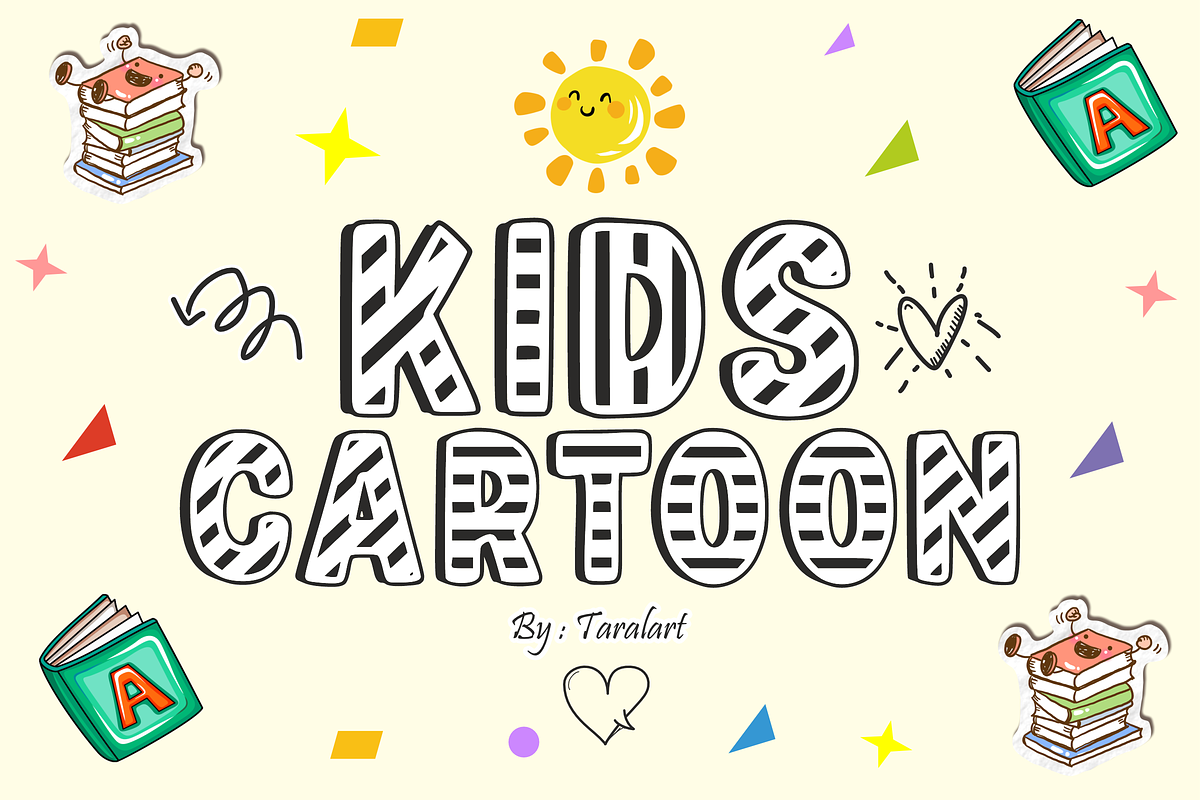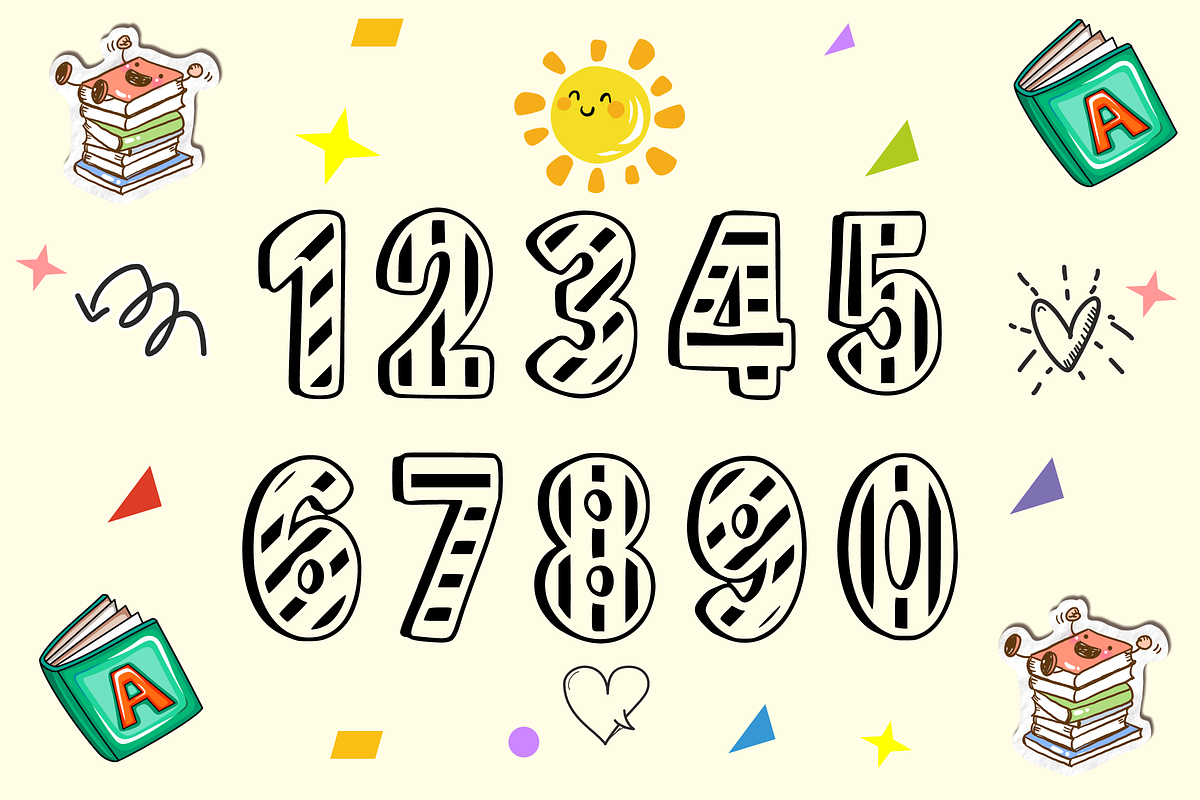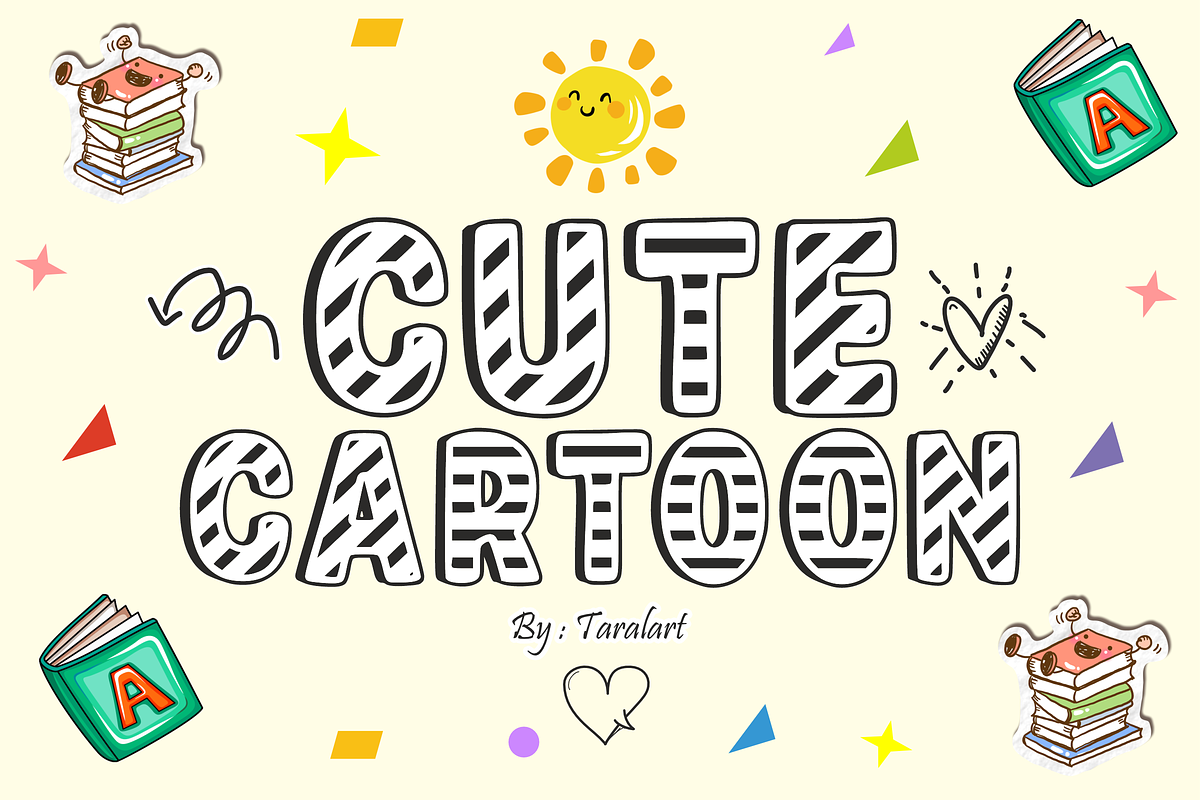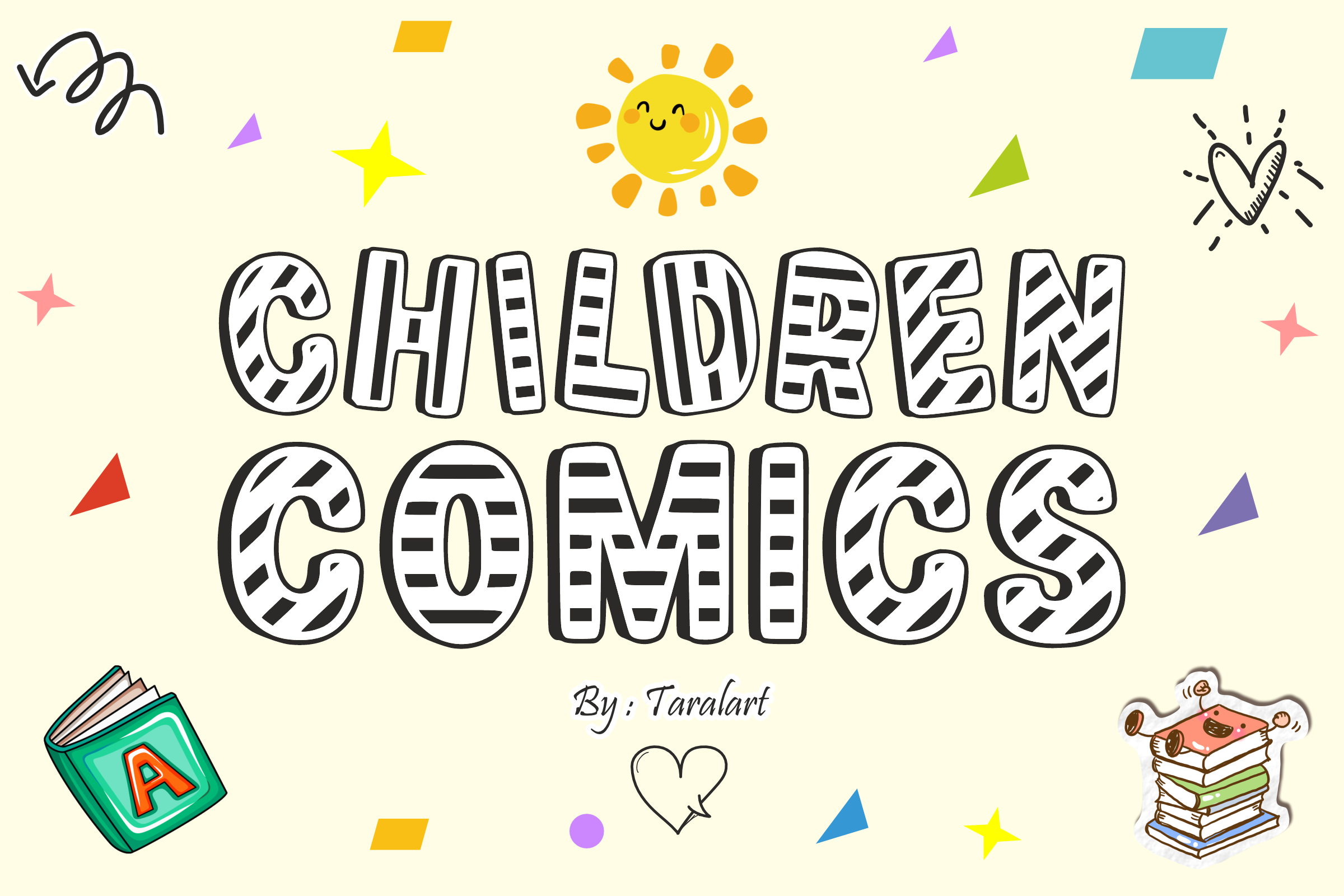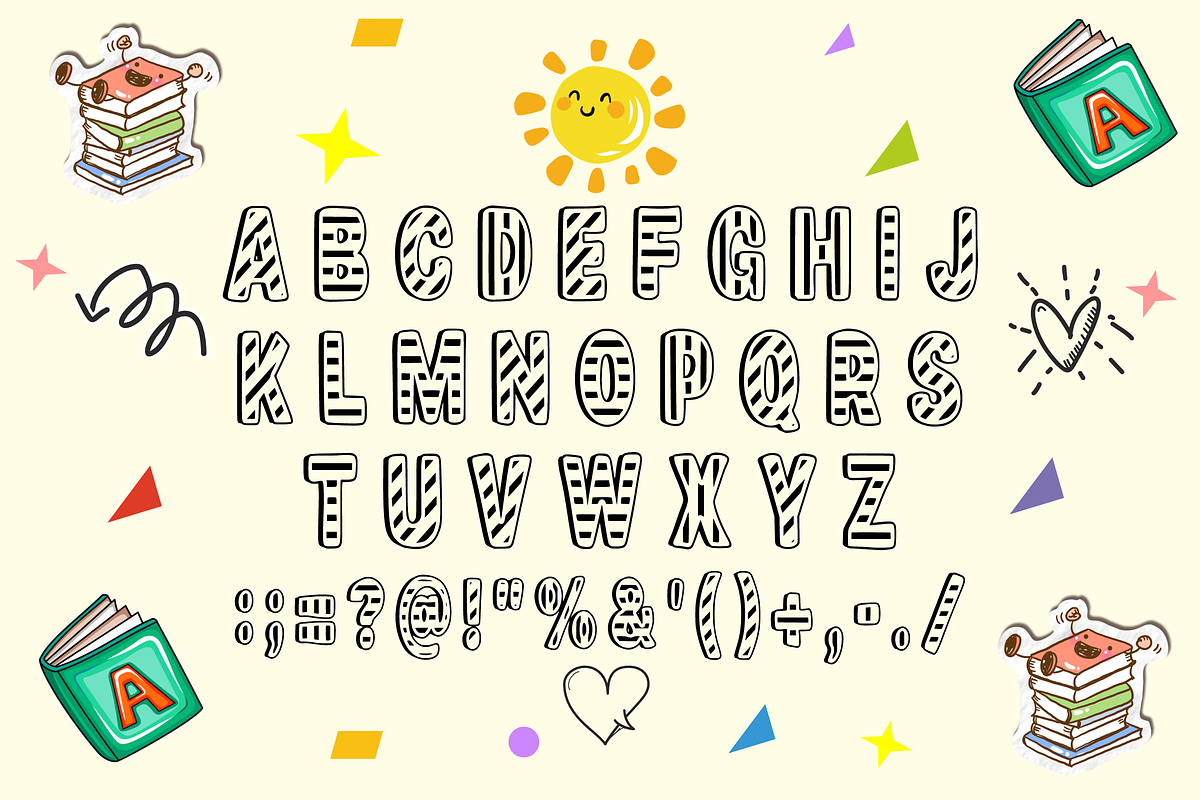
CHILDREN COMICS - Striped Kids Font
CHILDREN COMICS - Playful Striped Kids Font
Bring your stories and crafts to life with Children Comics! This ultra-fun display font features bold, hand-drawn letterforms filled with a whimsical horizontal stripe pattern. Explicitly designed to capture the cheerful imagination of childhood, it’s the perfect choice for making headlines and titles look incredibly lively and engaging.
Perfect for school materials, children's books, and trend-focused crafting, Children Comics masterfully blends a playful sketchy aesthetic with excellent legibility. It is highly versatile, expressive, and fully optimized for seamless performance across digital cutting machine tools and professional print projects.
All-Caps Character Set (Chunky, happy striped uppercase letters)
Numbers & Basic Punctuation (Essential, simple symbols included)
Teacher Resources, Classroom Decor, & Educational Activity Sheets 🎒
Children’s Book Covers, Funny Comic Strips, & Storybook Titles 📚
Cricut, Silhouette, & DIY Kid-Friendly Craft Sublimation Projects ✂️
Kids' Product Packaging, Birthday Party Themes, & Toy Labels 🎈
Custom Die-Cut Stickers, Creative Branding, & Youth Apparel Prints 👕